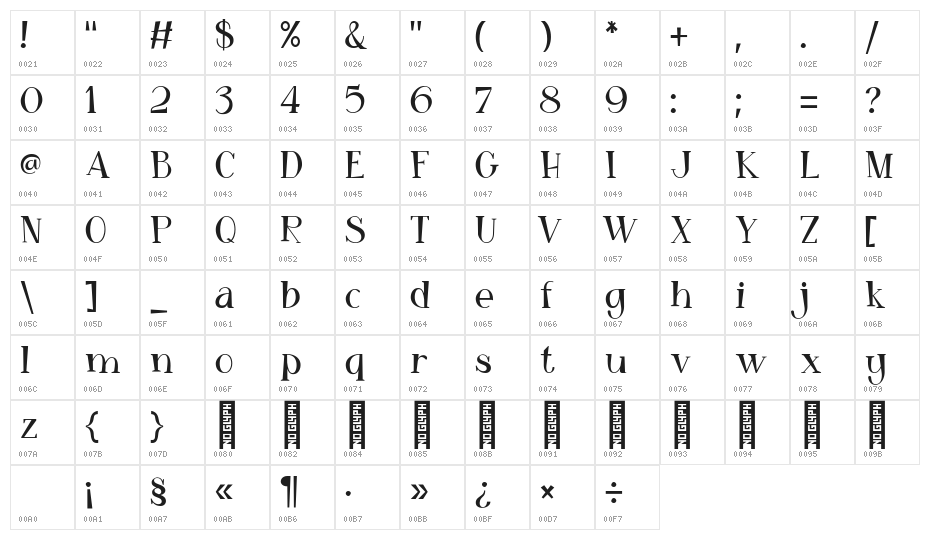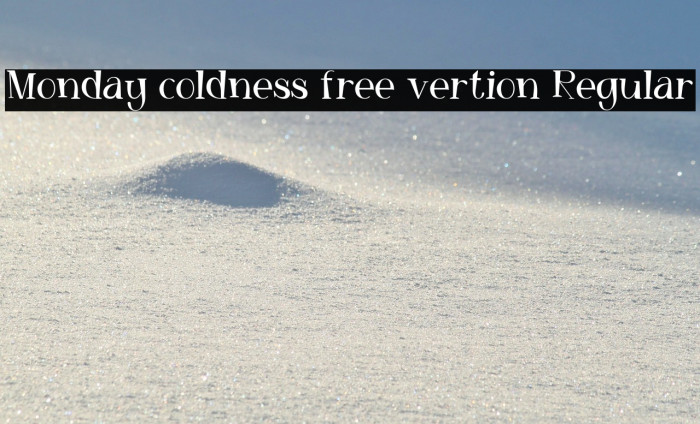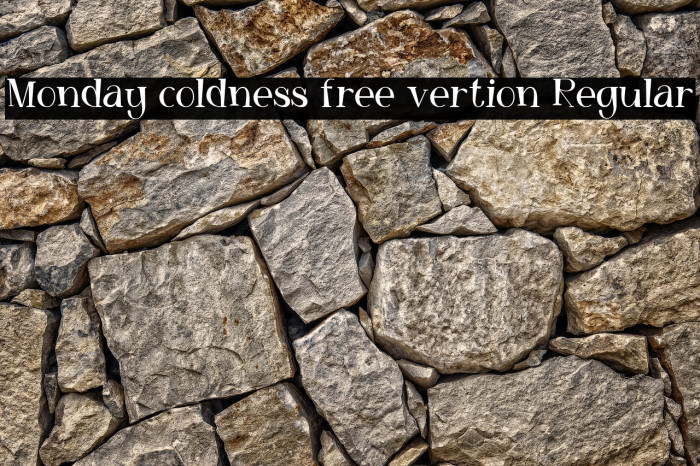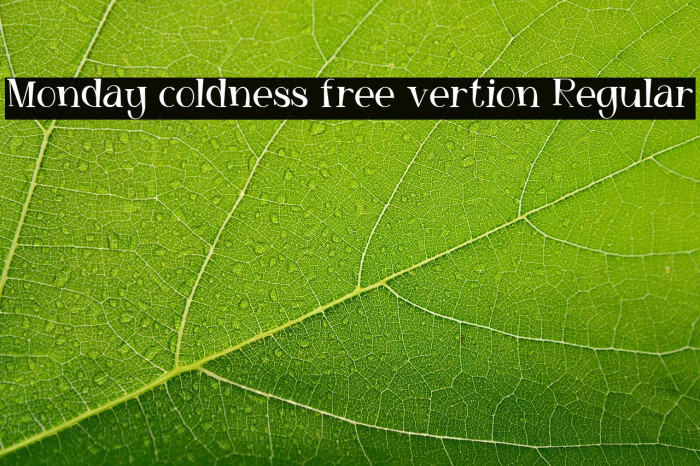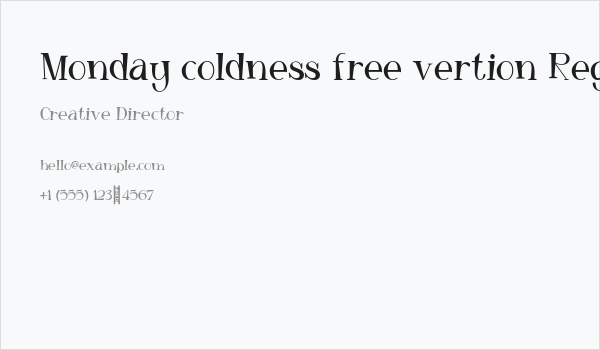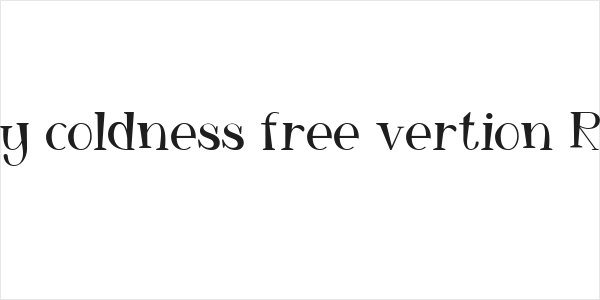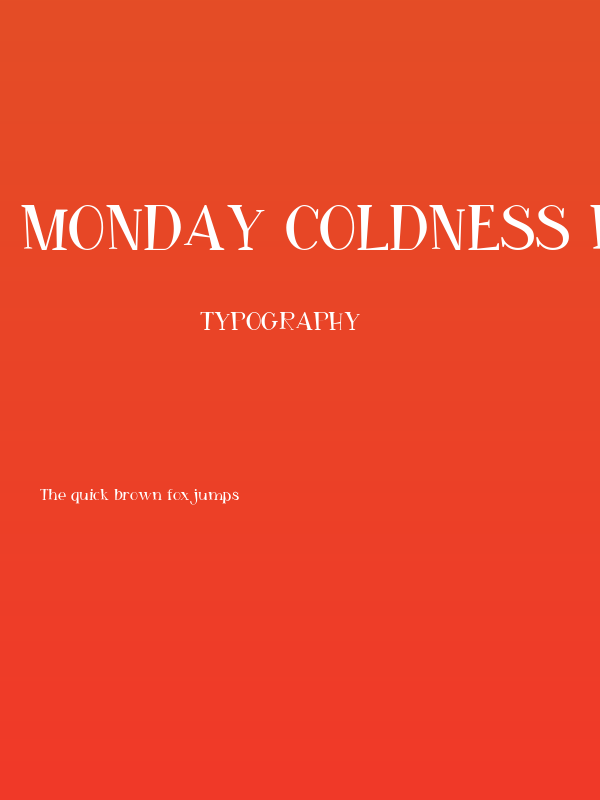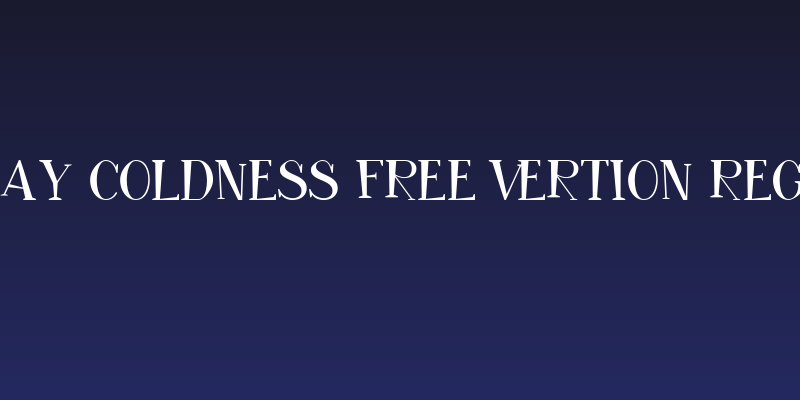
Monday coldness free vertion Regular Font
Monday coldness free vertion Regular Description
This font features a unique blend of classic serif elements with a modern twist. The uppercase letters are characterized by their tall, elegant forms and slightly exaggerated serifs, giving them a sophisticated and artistic appearance. The lowercase letters maintain a consistent style, with smooth curves and a balanced weight distribution. Numbers are designed with a similar aesthetic, ensuring readability and visual harmony. Special characters are thoughtfully crafted to match the overall style, making this font versatile for various applications.
| Use Case | Headlines, Logos, Editorial design |
| Proposed Projects | Ideal for branding projects, editorial design, and creative advertising where a touch of elegance is desired. |